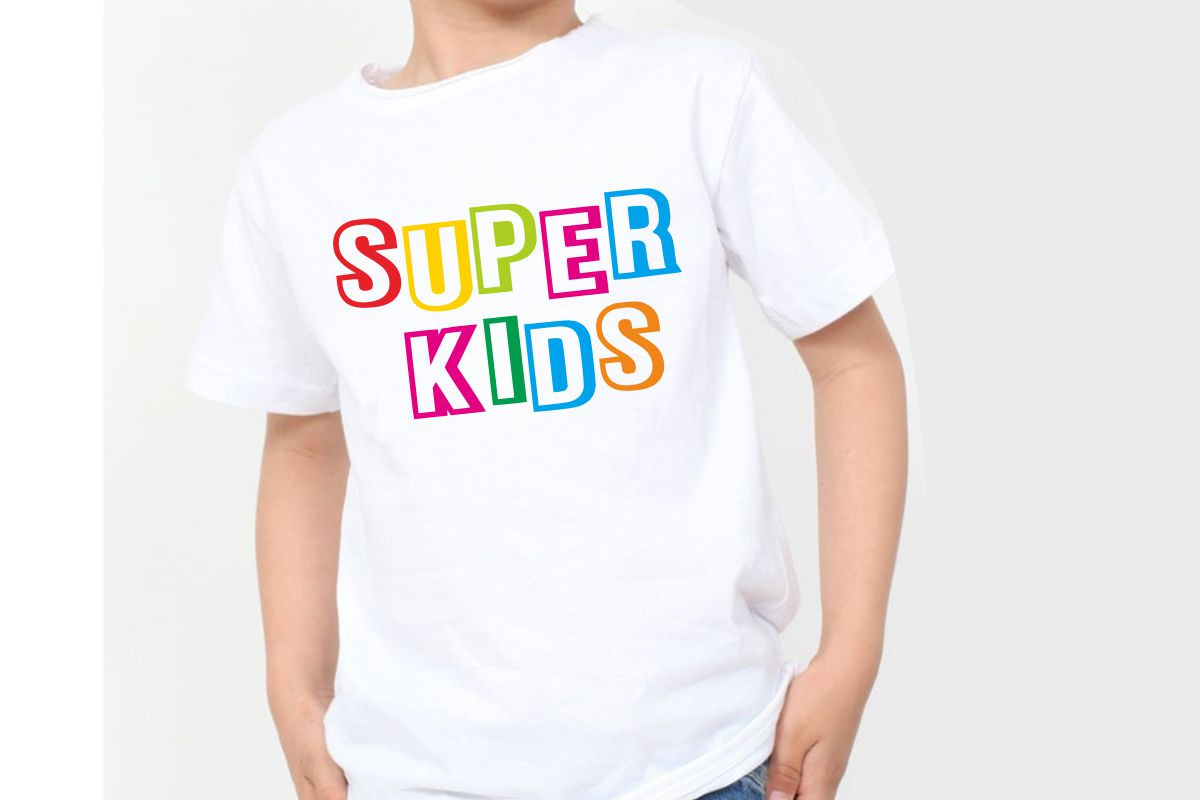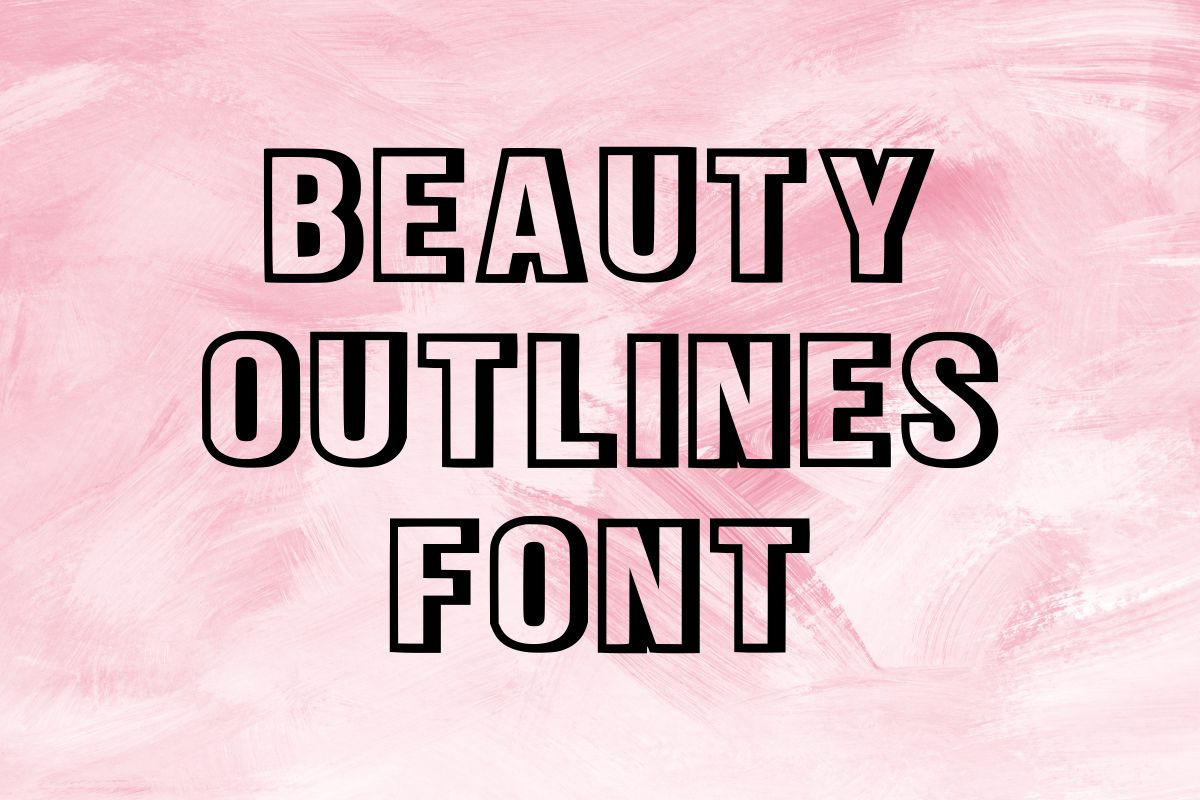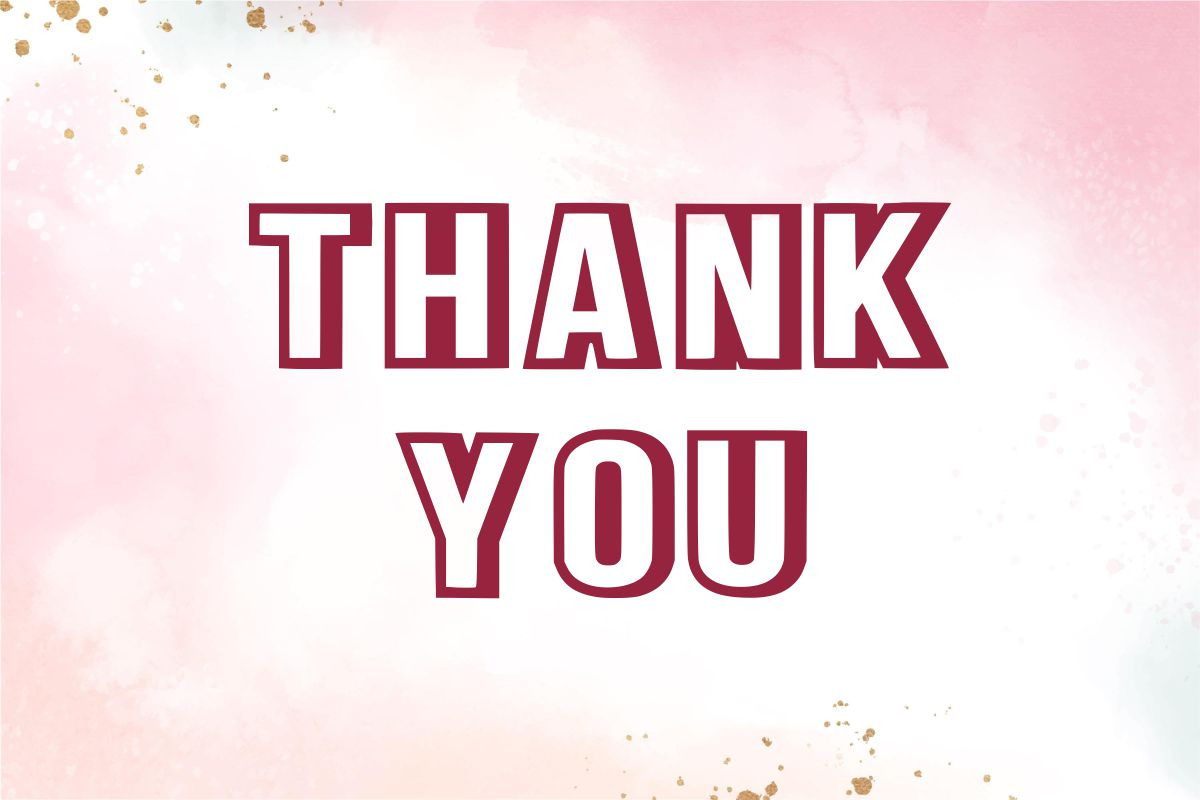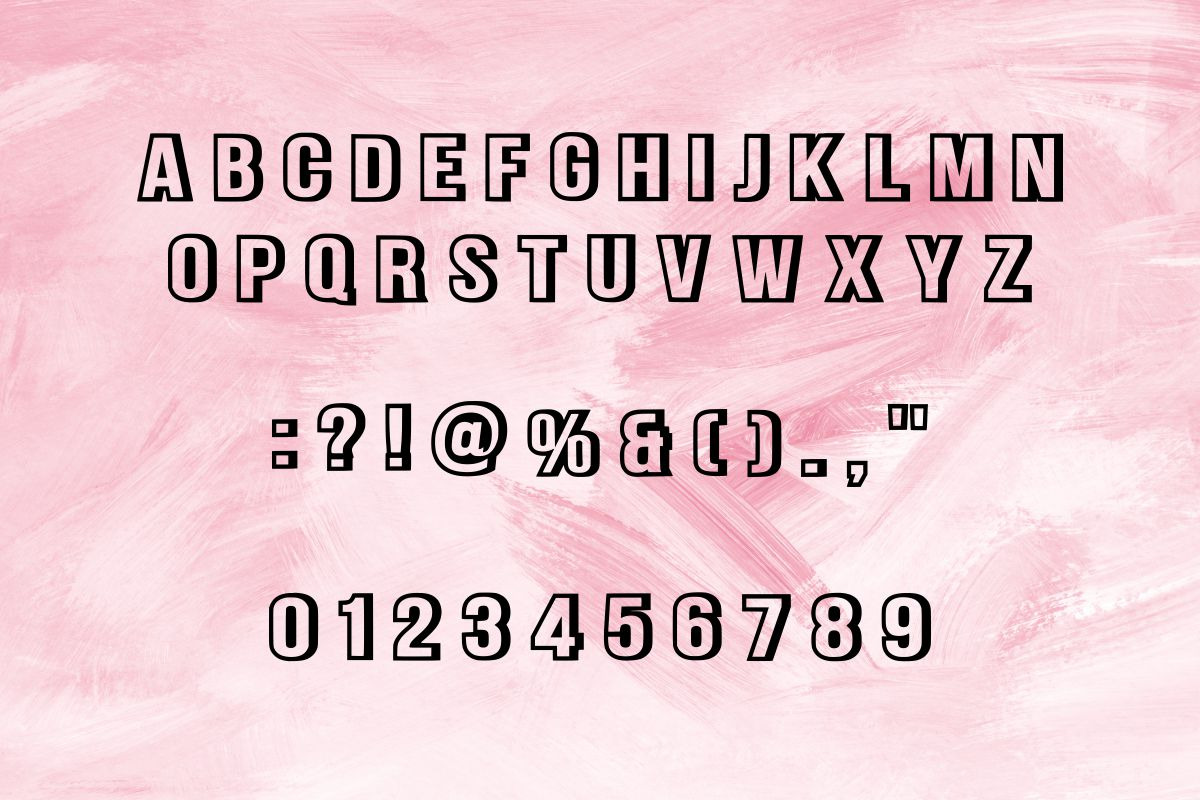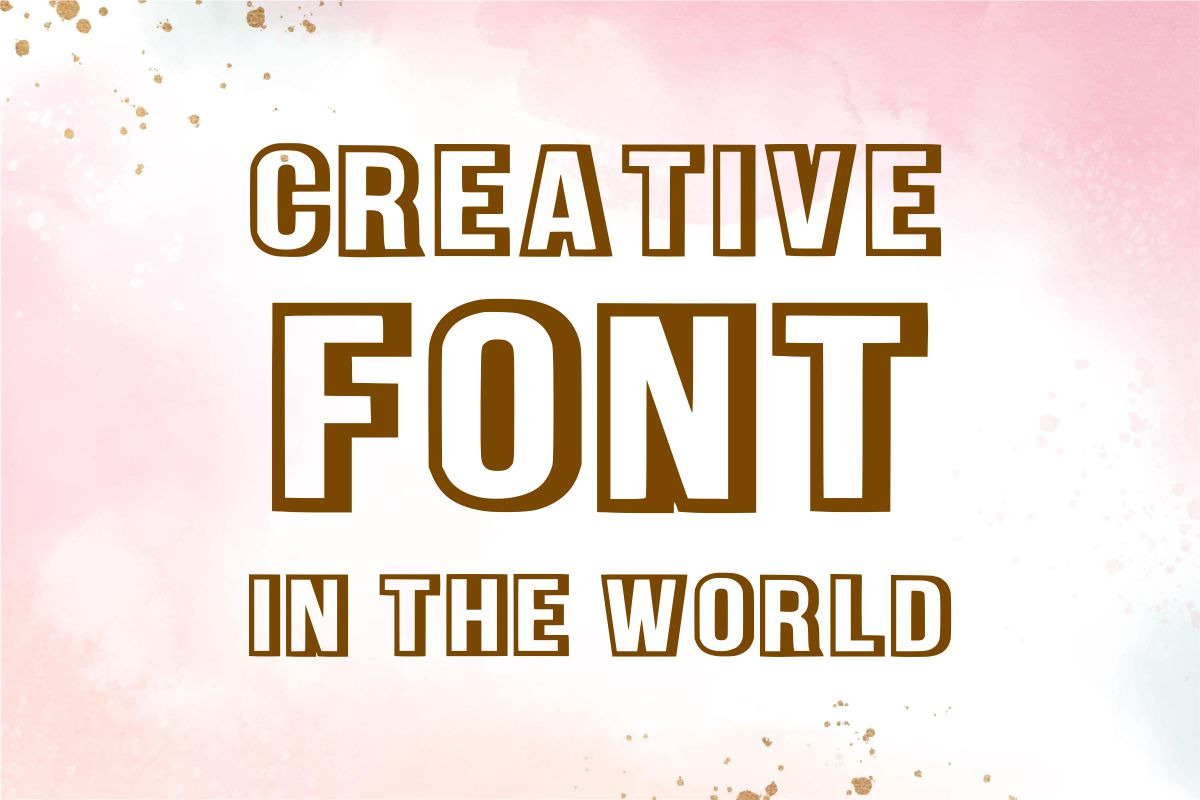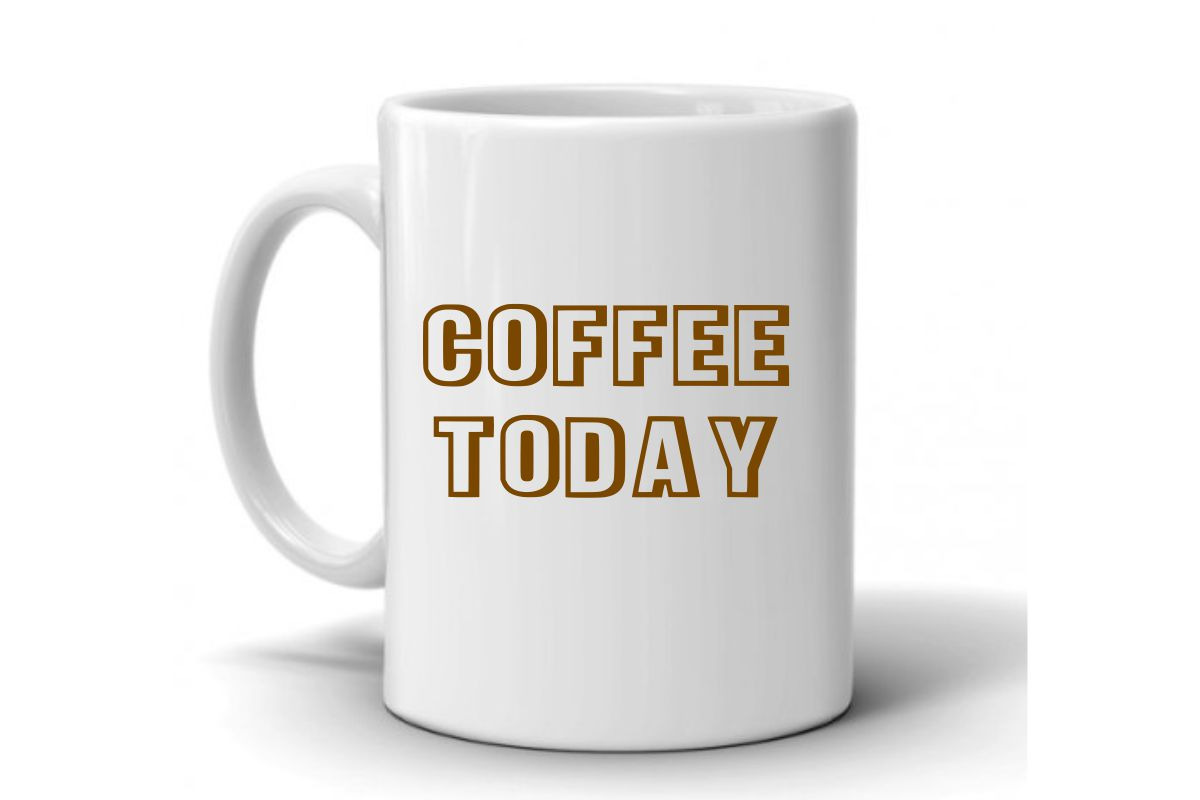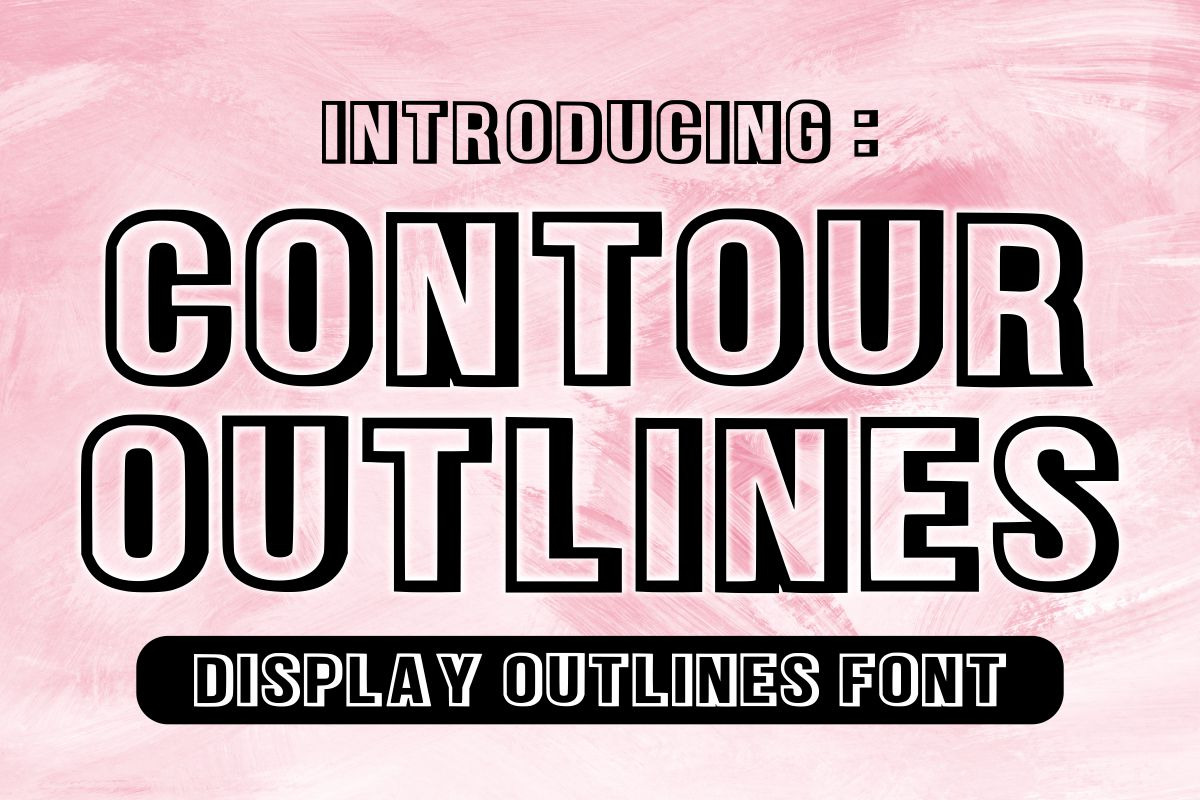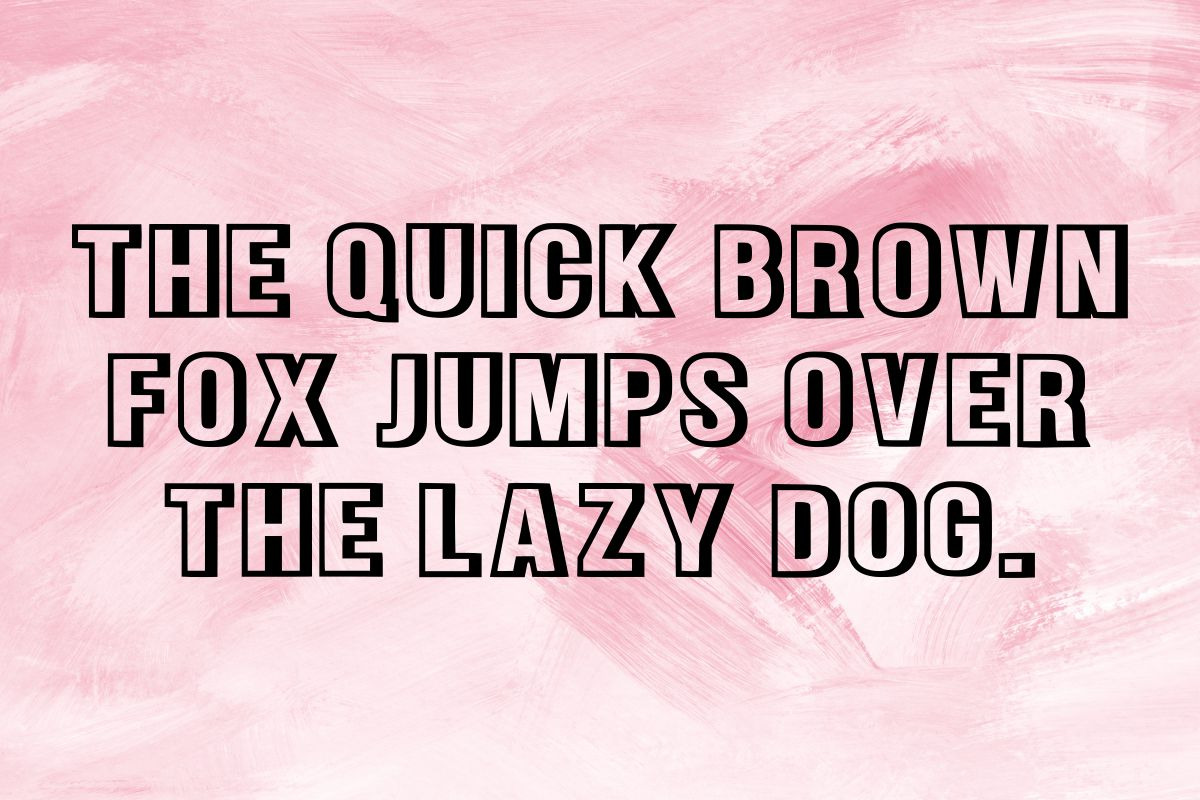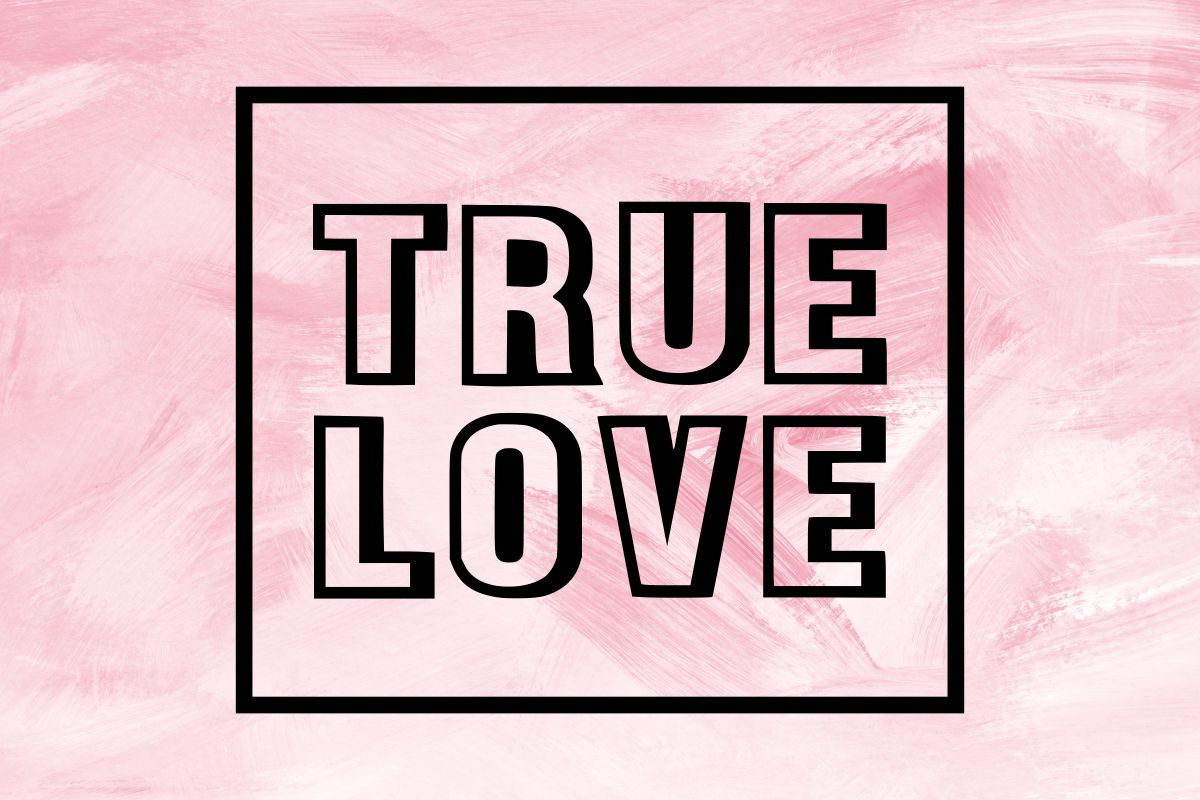
Contour Outlines Font
Contour Outlines is an assertive and adaptable display font. It is easy-to-read and conveys impeccable friendliness. Whether you’re using it for crafts, digital design, presentations, or making greeting cards, this font has the potential to become your favorite go-to font.